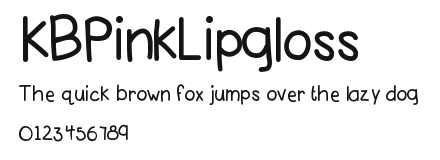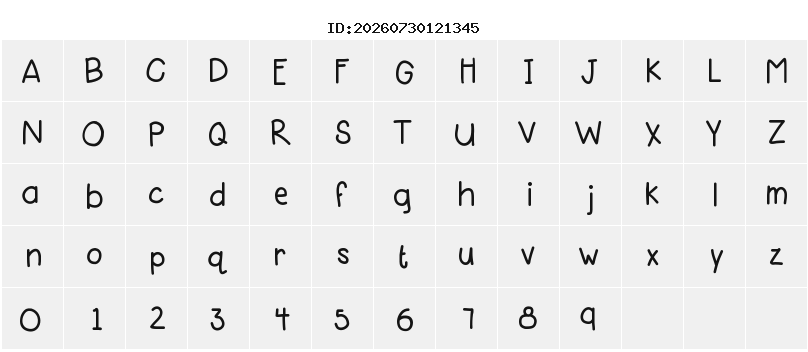
KBPinkLipgloss Preview
• Font Name: KBPinkLipgloss
• Full Font Name: KBPinkLipgloss
• PostScript Name: KBPinkLipgloss
About KBPinkLipgloss.ttf
KBPinkLipgloss.ttf is a modern, elegant sans-serif font designed for ultimate readability and visual harmony. Perfect for branding, headlines, web design, and print materials.